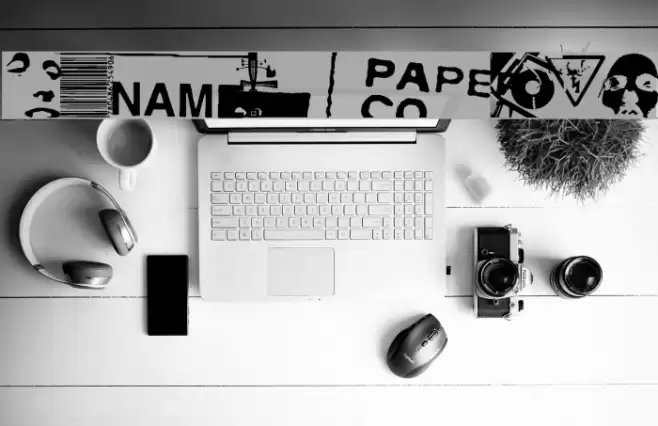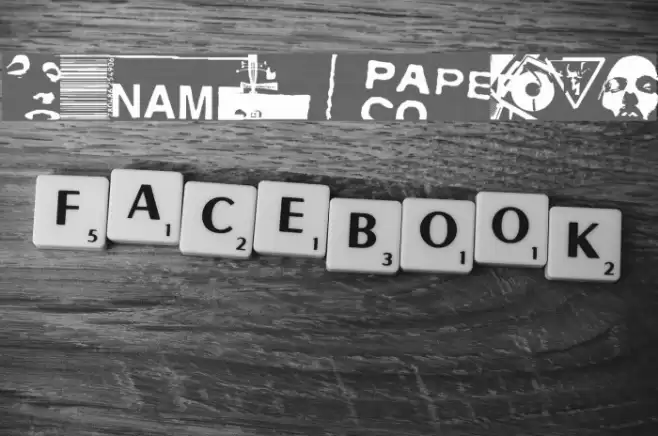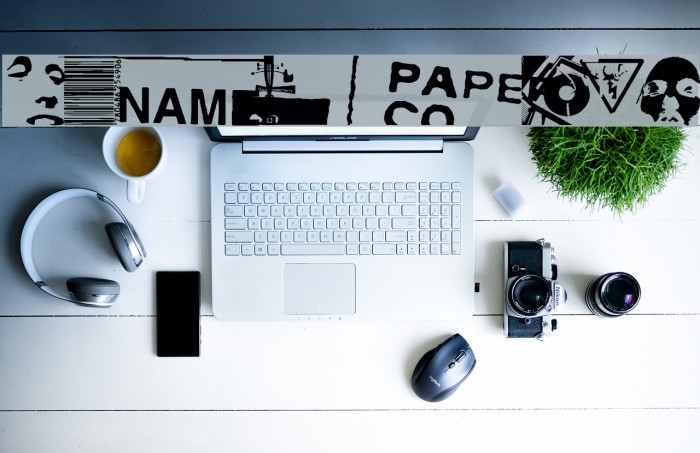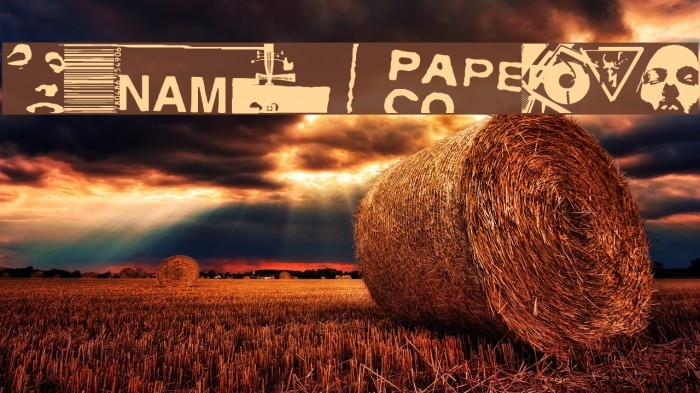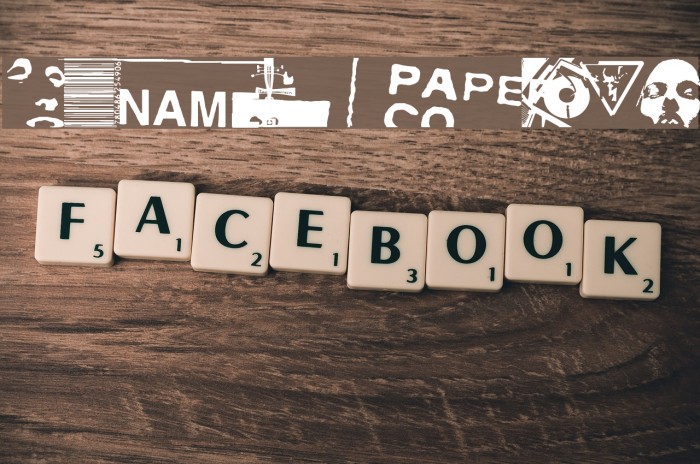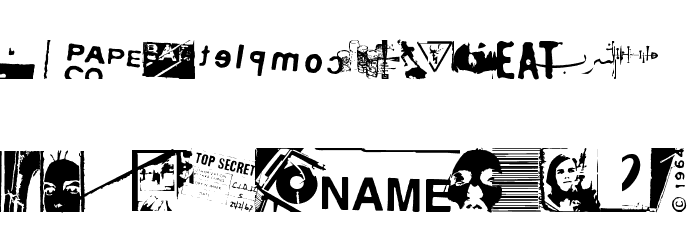
Ausfarht Font
Ausfarht Description
A highly experimental and collage-style decorative font featuring fragmented images, mixed media elements, and irregular letterforms. The characters are constructed from a combination of photographic snippets, graphic shapes, and uneven text, resulting in a chaotic and avant-garde appearance.
Collage-inspired, chaotic decorative font with mixed media elements from Uncategorized fonts.
- Proposed Projects: Album covers, zines, experimental posters, art installations, avant-garde branding.
- Overall Style: Experimental, Collage, Avant-garde, Decorative
- Use Case: Posters, Album art, Artistic projects, Display headlines